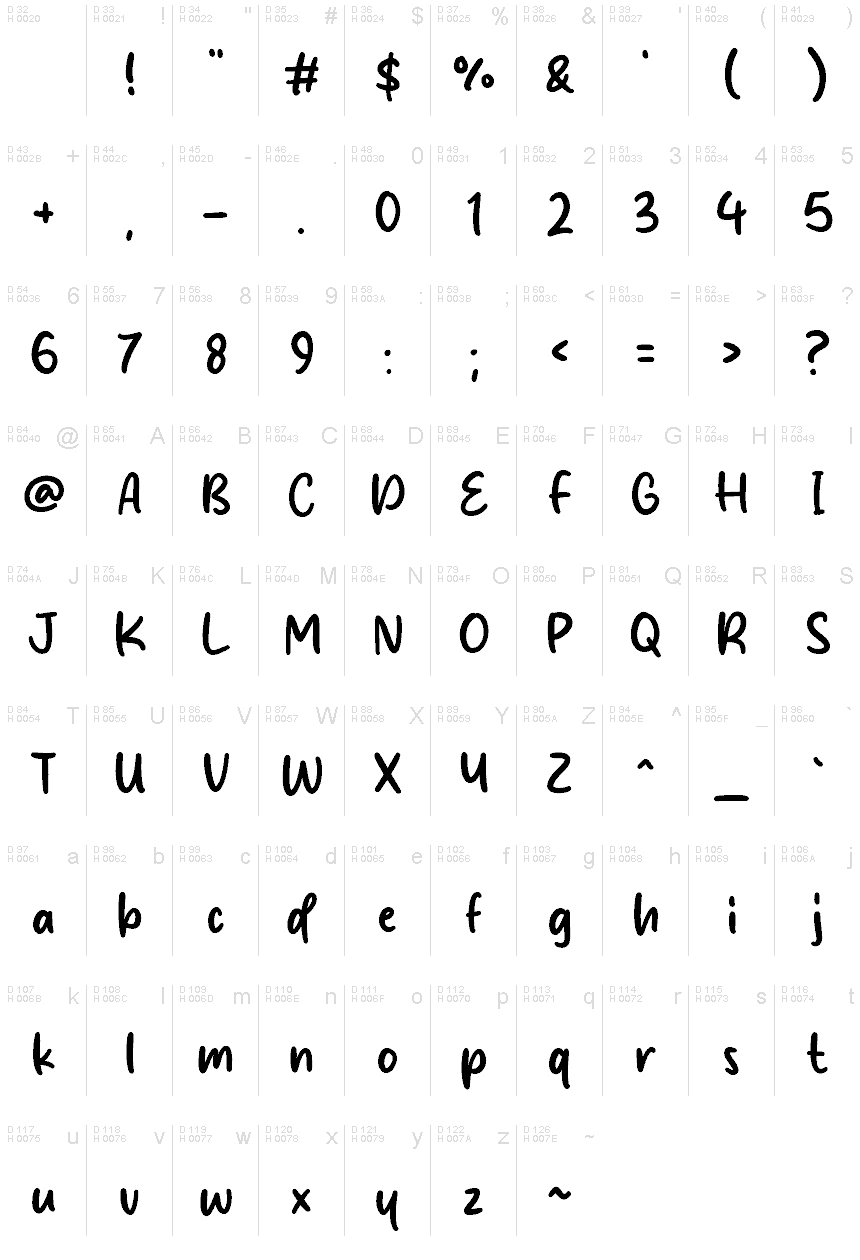
Prince Kaya
Prince Kaya font by MJType is a modern handwritten font with a casual aesthetic and approachable vibe. Its brush script style gives it an engaging and authentic feel, perfectly capturing the essence of freehand writing.
Use this free handwritten font in restaurant menus, invitation cards, book covers, notebooks, social media posts, mugs and t-shirts designs. Applicable also in diaries and notebooks covers where written content matters as well as branding projects or digital/printed ads.